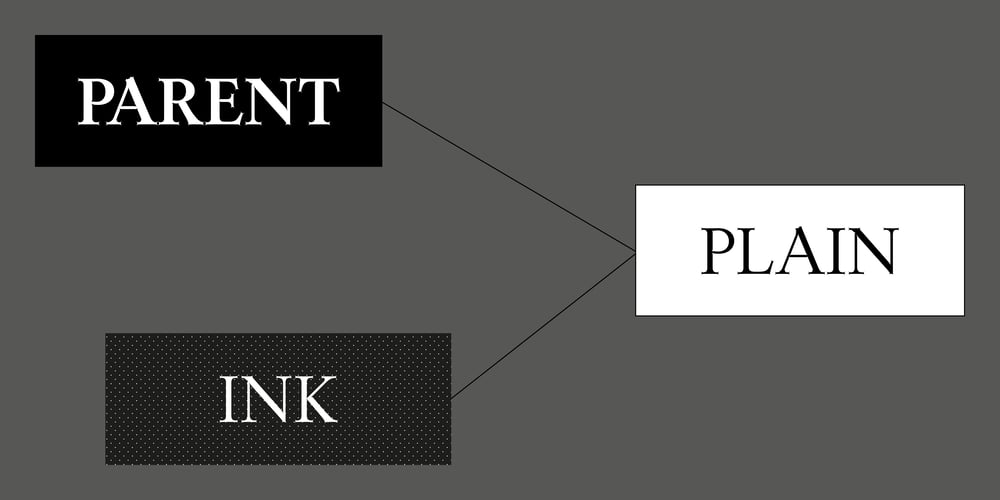
Parent Font Family was designed by Colophon Foundry and published by Colophon Foundry. Parent contains 10 styles and family package options. On initial inspection, Parent presents a classically designed Serif typeface intended for body copy use at a range of point sizes, with traditional half ball terminals and refined levels of contrast. Partly inspired by old-style Serif typefaces, a more covert origin for Parent was found in an image from Adrian Frutiger’s “Typefaces. The Complete Works”, where outward strokes referred to as “Daggers” had been manually taped to letterforms to retain sharp edges throughout the printing process.The design intent behind Parent was to reinterpret the functionality of this original feature into a deliberate design characteristic. As such, a specialised ‘Ink’ variant uses a combination of extreme incisions and reverse tapers to create unique, curling forms. The ‘Ink’ variant of Parent can be used in a multitude of ways, not only becoming a functional component facilitating the correct rendering of type at the most extreme small point sizes but also producing ornate and purposefully dramatic details for headline use at large point sizes.